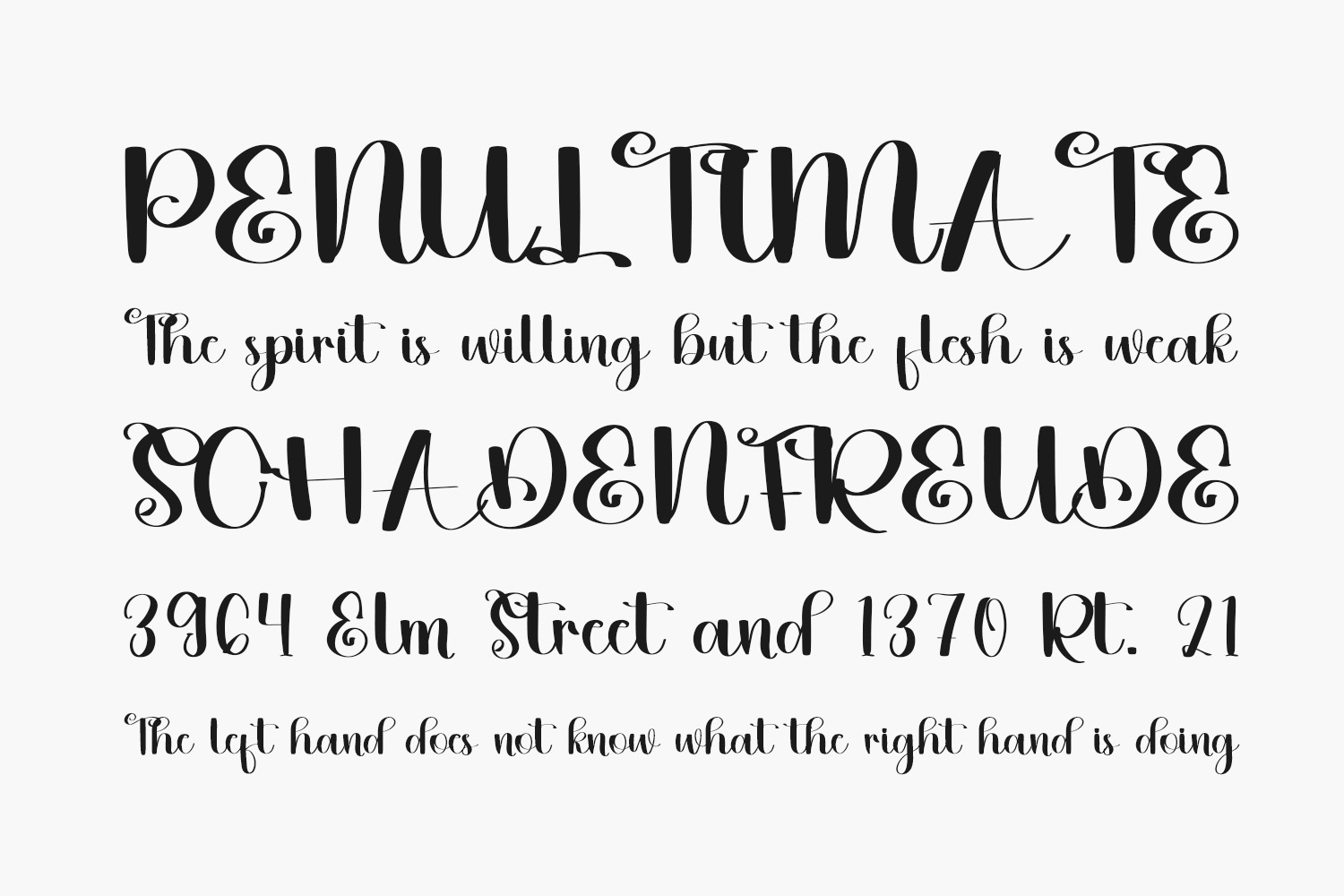
Aminah Free Font is a chic and trendy handwritten font. Whether you’re looking for fonts for Instagram or calligraphy scripts for DIY projects, this font will turn any creative idea into a true piece of art. Aminah Free Font was designed by Inermedia Studio and is free for personal use only. Please purchase the full version for commercial use.